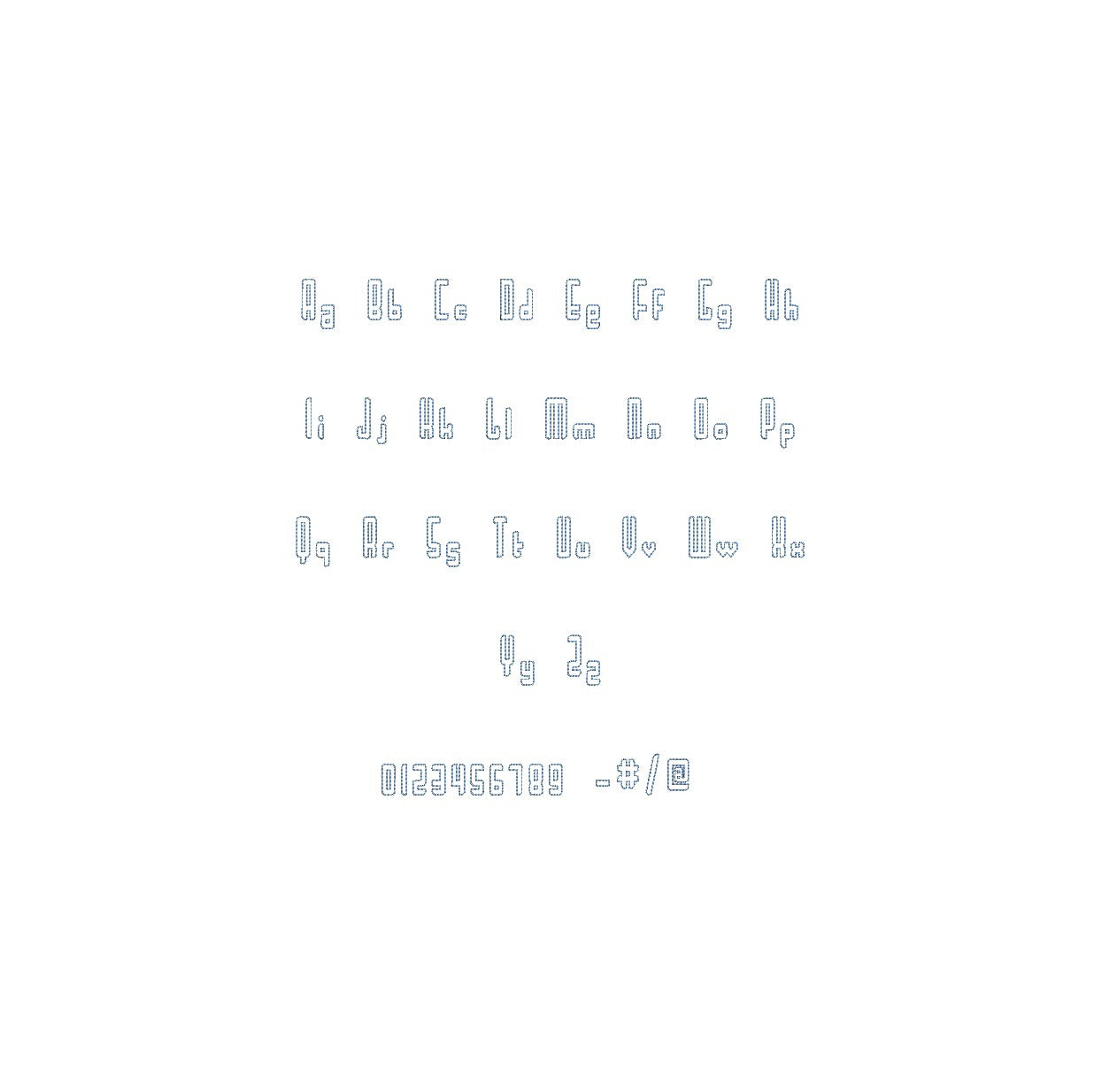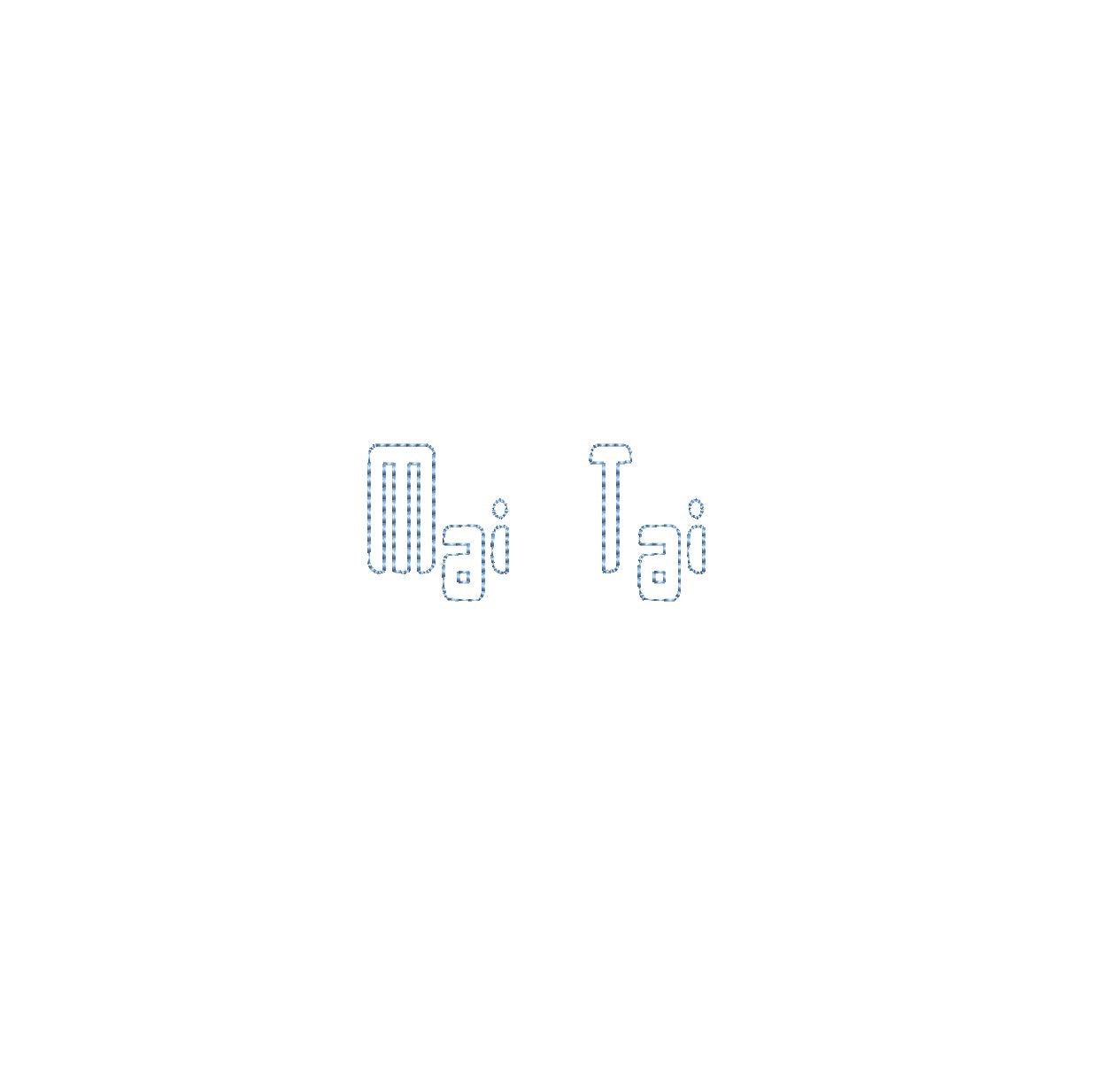
Elevate your embroidery endeavors with the Mai Tai Bean Outline ESA font. Crafted for Wilcom Studio e4.5.6 and Hatch 3 versions and up, this font seamlessly blends elegance and precision. Infuse your projects with a unique aesthetic, perfect for monograms and embellishments. Experience seamless compatibility and exceptional results. Unleash a new level of stitching finesse with the Mai Tai Bean Outline ESA font – your key to captivating designs that exude sophistication. Transform your creations into embroidery masterpieces that radiate class and creativity, making your work truly unforgettable.